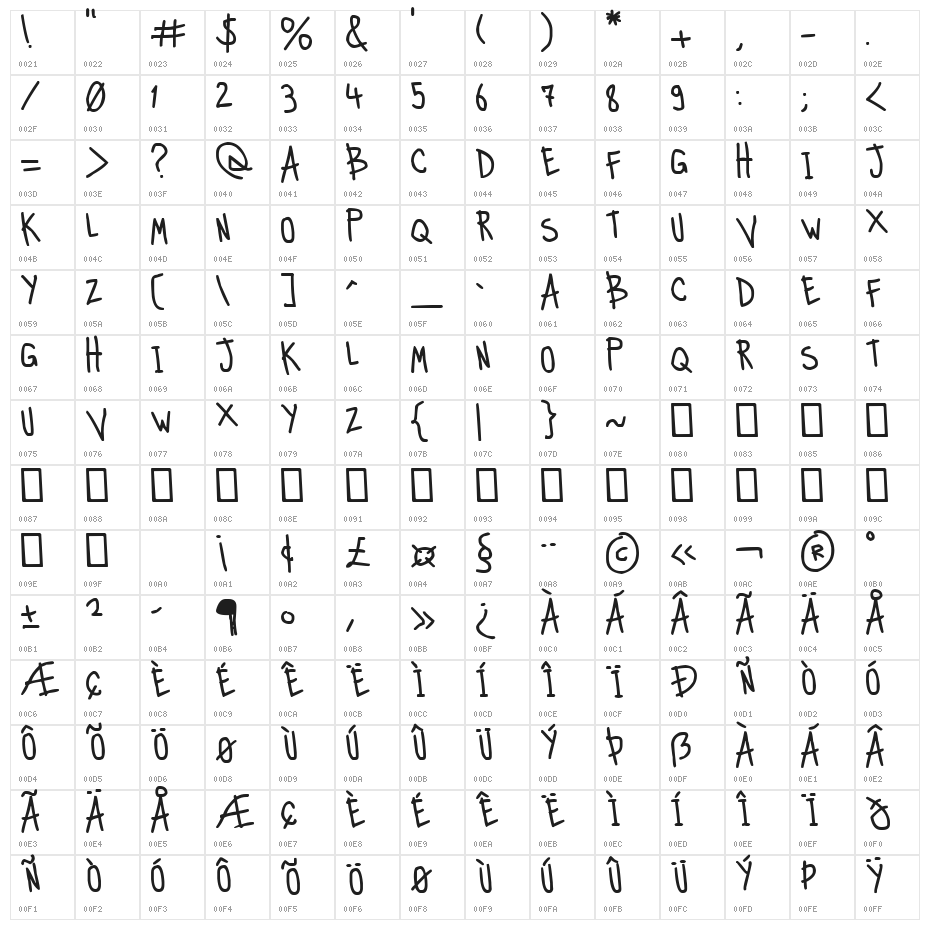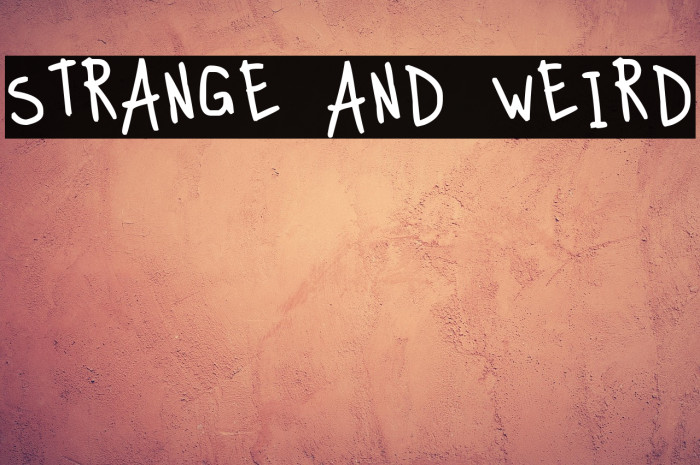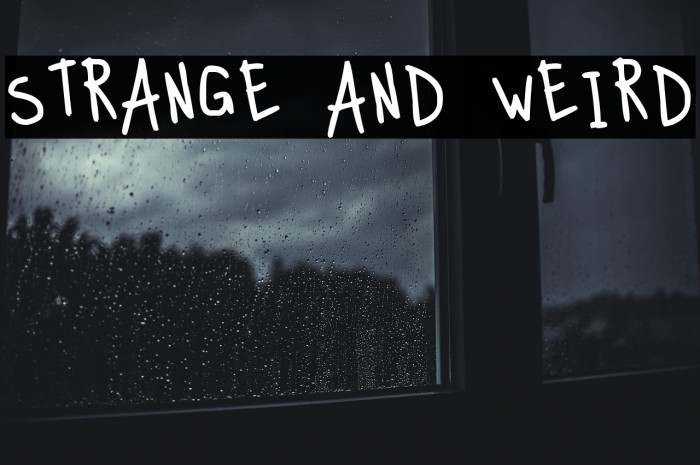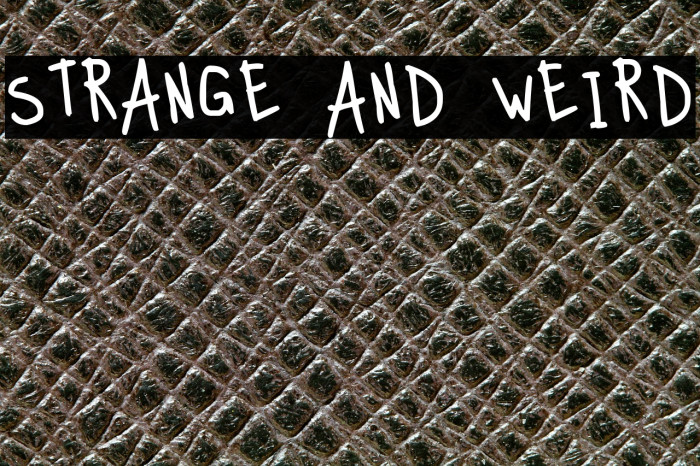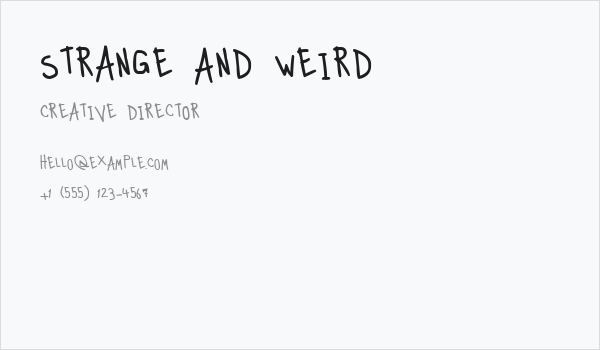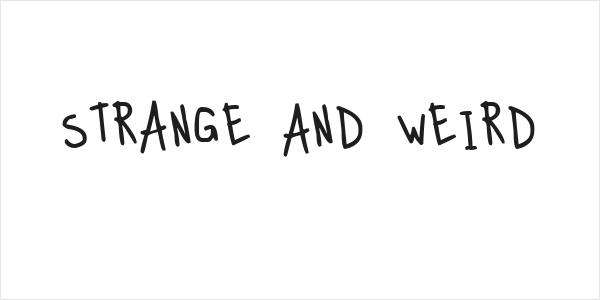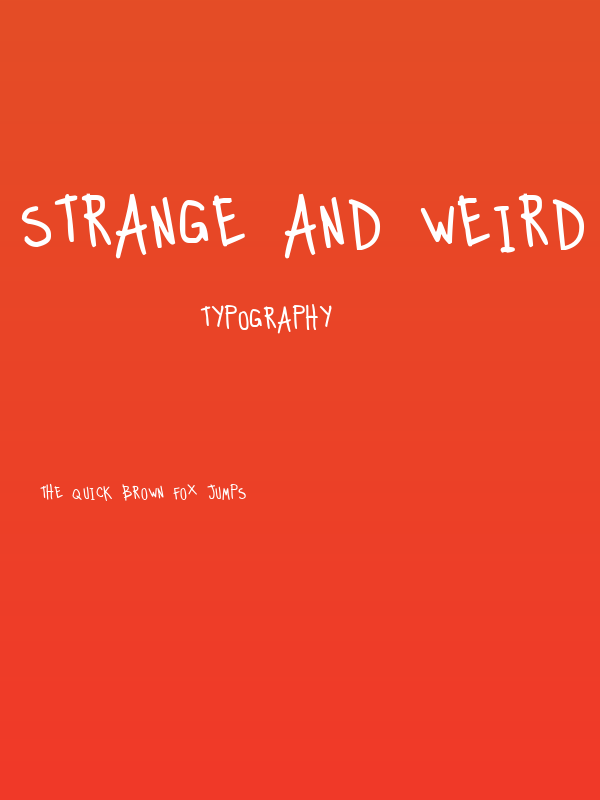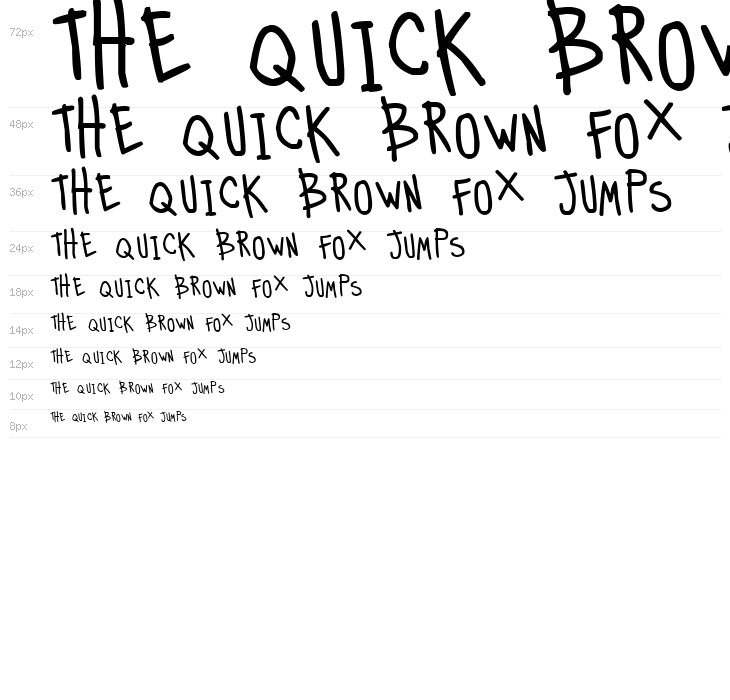
Strange And Weird Font
Strange And Weird Description
A quirky, handwritten font with uneven strokes and playful character shapes, giving it a casual and informal appearance.
| Use Case | Informal text, Creative projects |
| Proposed Projects | Greeting cards, children's books, casual posters. |